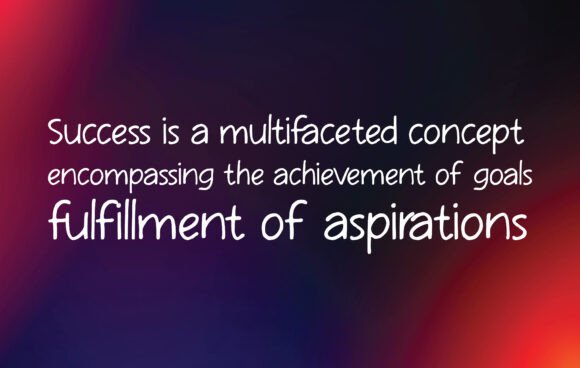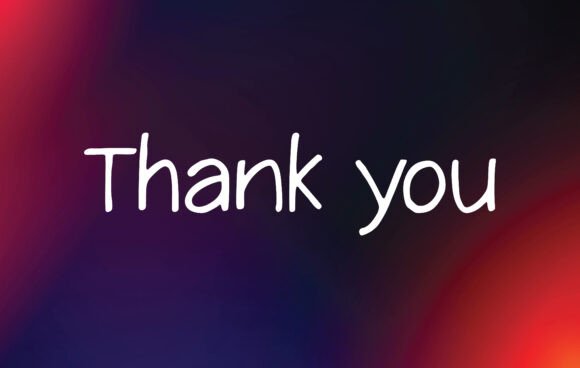
Introduction to Dorian Font
Dorian is a lovely and beautiful handwritten font.
Key Features of Dorian Font
Why Choose Dorian Font?
Dorian Font offers exceptional quality and versatility, making it a valuable addition to your design toolkit. Whether you’re creating for personal projects or commercial use, Dorian Font delivers professional results.